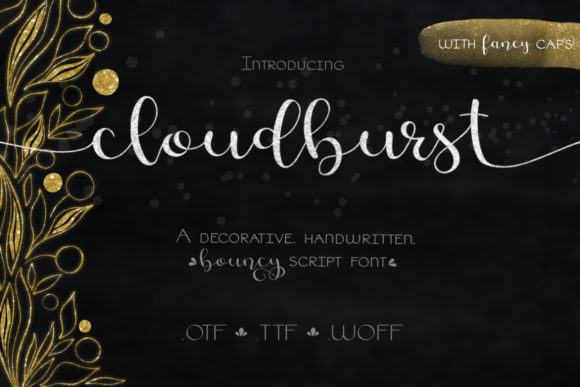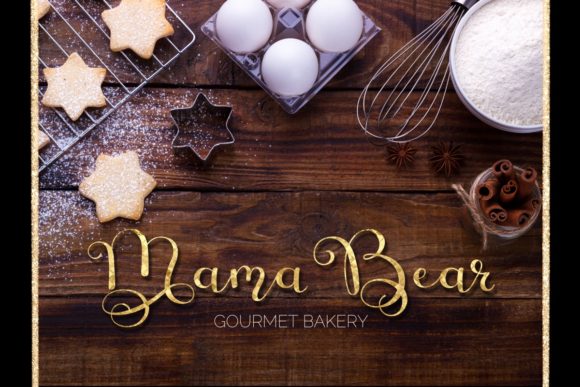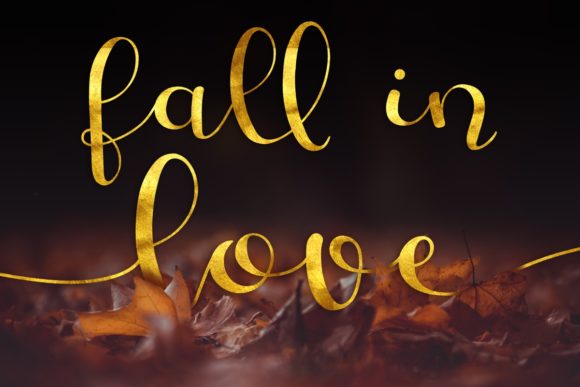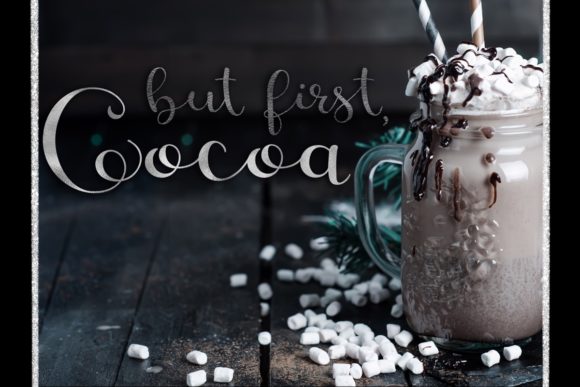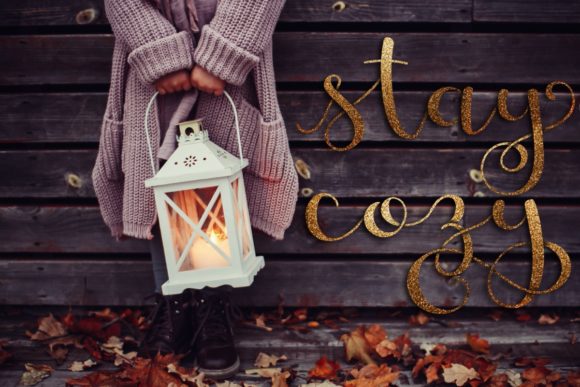
About Cloudburst Font
Cloudburst is a refined script font. This font is neatly crafted and highly detailed. Whatever the topic, this font will be a wonderful asset to your font library, as it has the potential to enhance any creation.